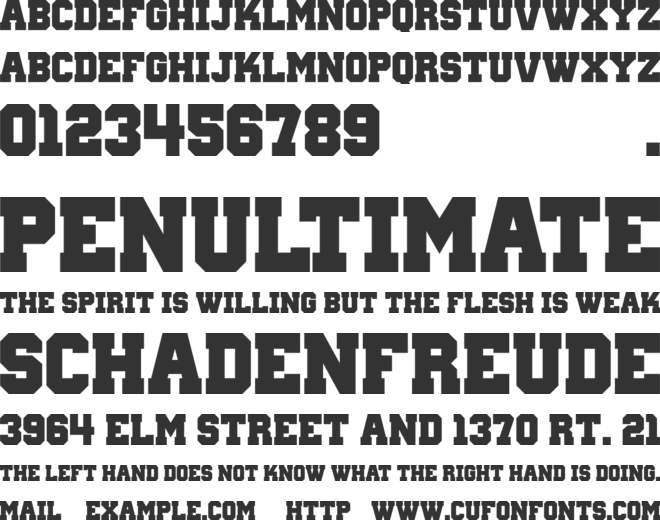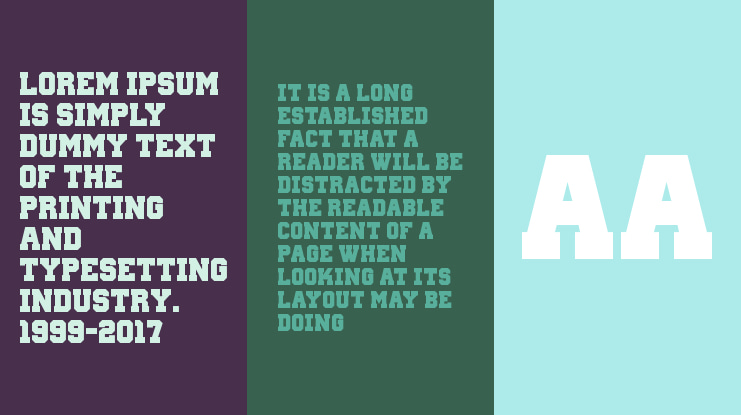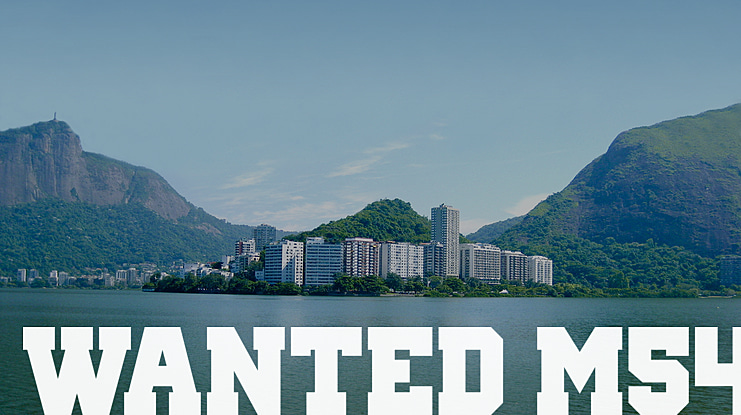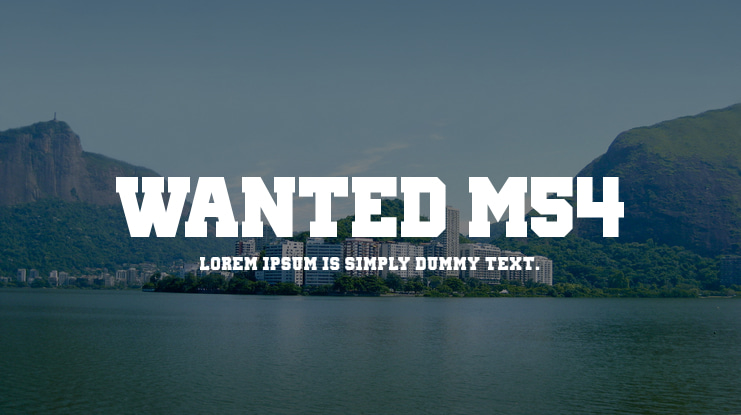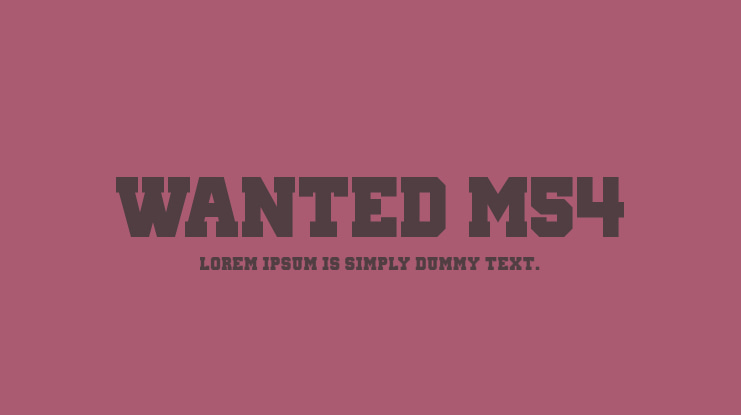
Wanted M54 Font
A bolder variation of the classic collegiate style typeface. Great for t-shirts, apparel design and kit numbers. Will also look great on posters.